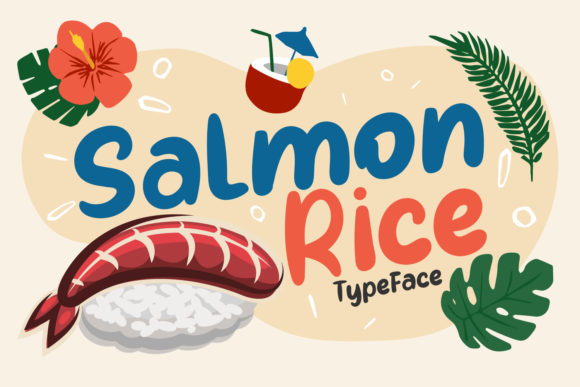
Dive into the whimsical world of Salmon Rice, a display font that radiates charm and merriment! Designed by the creative minds at sabrcreative, this font is crafted with a touch of playfulness that will add a dash of delight to all your design endeavors.
Let Salmon Rice's bouncy curves and playful strokes enchant your audience, leaving them captivated by the sheer joyfulness it exudes. It's the perfect font to add a dash of whimsy to your invitations, posters, and social media posts, or to create eye-catching headlines and logos that demand attention.
With its irresistible charm, Salmon Rice will make your words come alive. Use it to create personalized greeting cards that will warm hearts, design children's books that ignite imaginations, or craft branding materials that evoke a sense of wonder and delight.
Salmon Rice is more than just a font; it's an experience. It's a font that will make your designs smile, spreading joy with every letter. Embrace the magic of Salmon Rice and let your creativity soar!
* Delightful and playful display font
* Perfect for adding a touch of whimsy to your designs
* Ideal for invitations, posters, social media posts, headlines, and logos
* Enchanting curves and playful strokes
* Makes your words come alive
* Perfect for personalized greeting cards, children's books, and branding materials